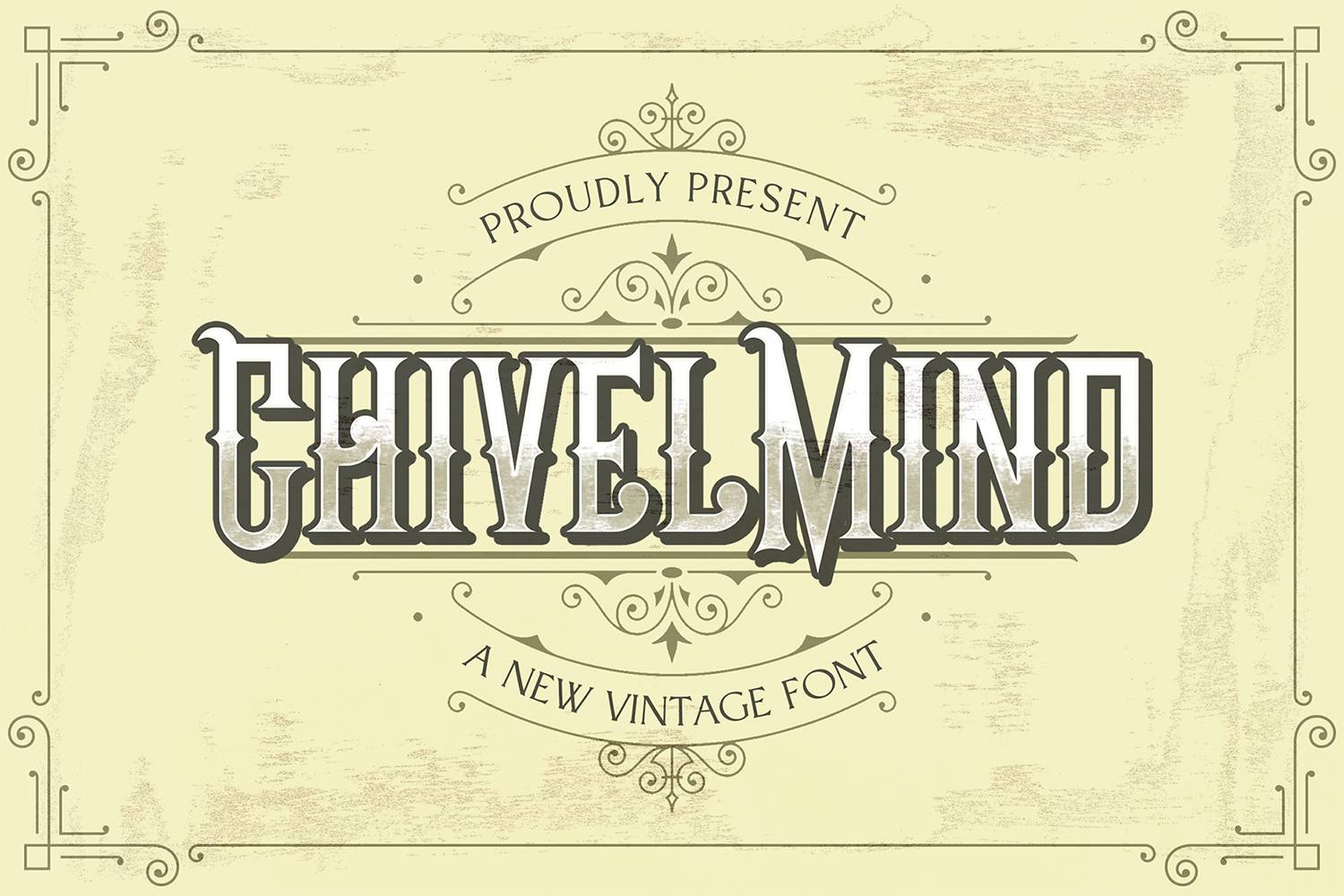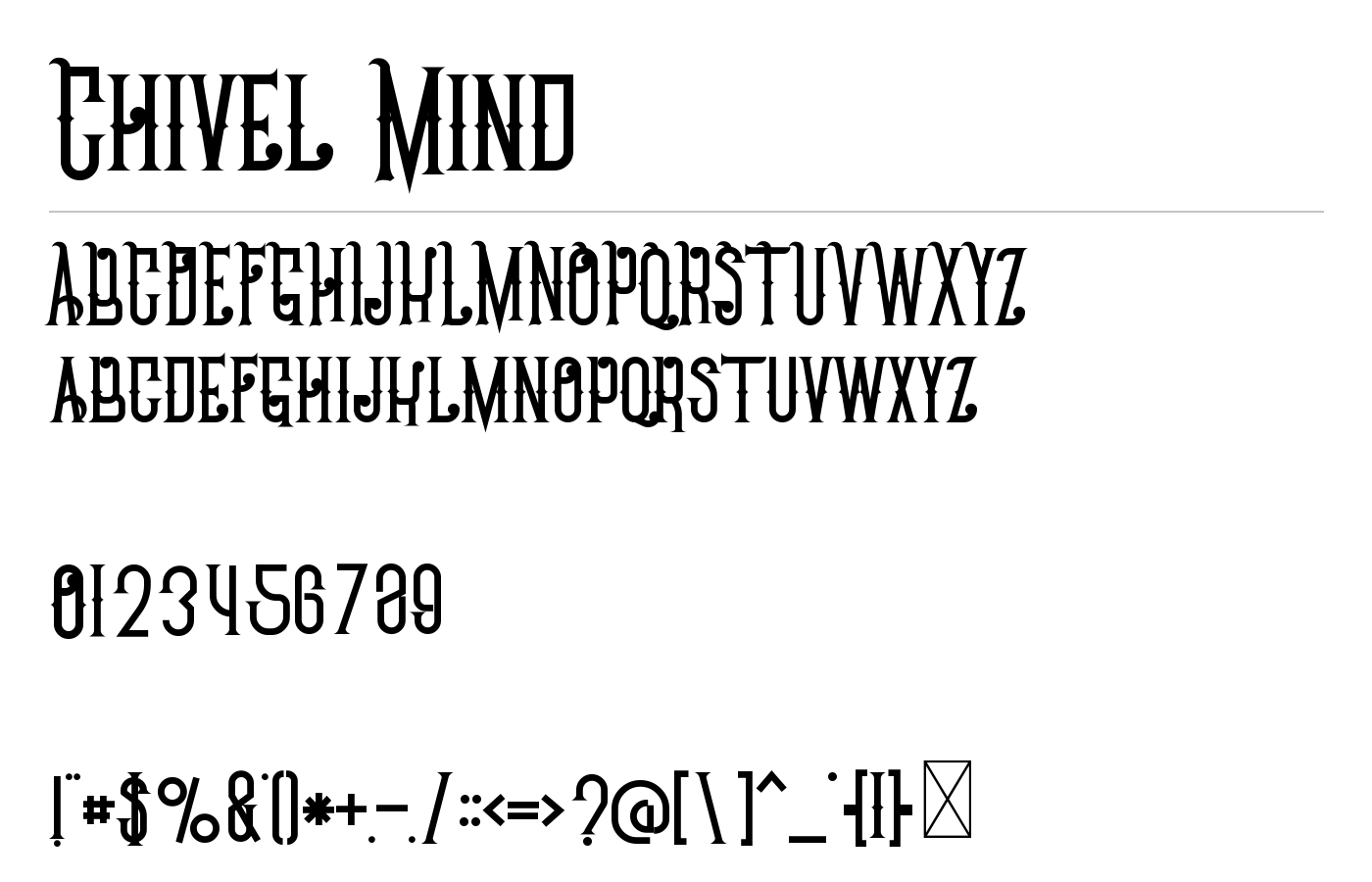
Chivel Mind is a narrow serif display font with a vintage Western flair, featuring tall, condensed letterforms and strong vertical emphasis. Its sharp, bracketed serifs and decorative flourishes give it a distinctive, adventurous personality, ideal for eye-catching headlines, logos, or branding that seeks a bold, old-fashioned yet stylish touch. This font works best in designs that need a dramatic, historic feel, such as posters, packaging, and themed editorial projects.
Chivel Mind Font
About Chivel Mind Font